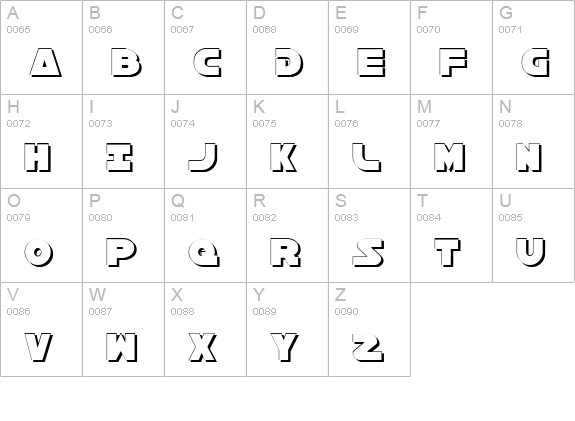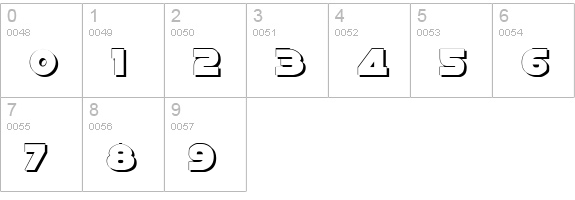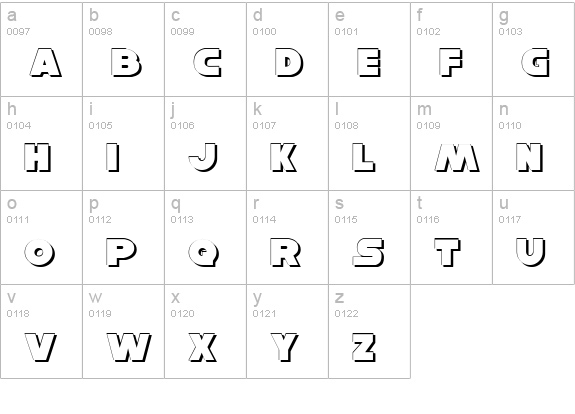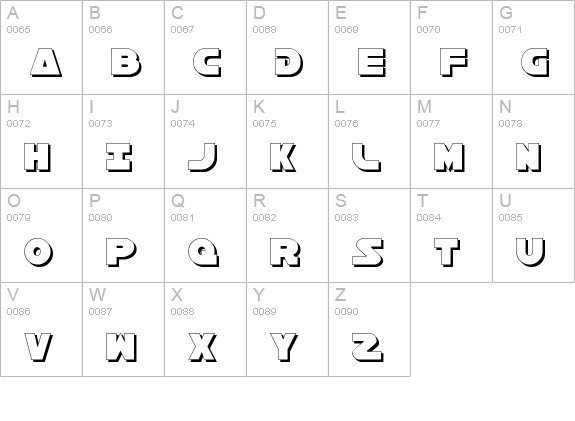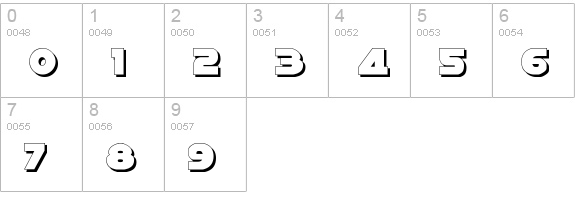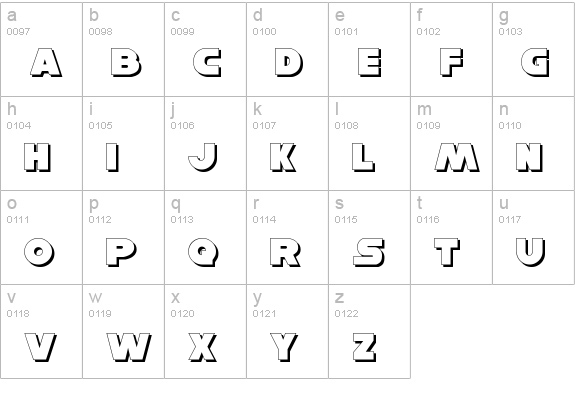
Han Solo Shadow Font Details
Introducing Han Solo Shadow font, a stunning typeface inspired by the legendary Han Solo himself. This font captures the essence of Han Solo's adventurous spirit, combining bold and dynamic letterforms with a touch of futuristic flair. The Han Solo Shadow font is perfect for adding a touch of rebellion to your design projects. Whether you're creating a poster for a sci-fi movie marathon, designing a logo for a space-themed event, or even customizing your own Star Wars-inspired merchandise, this font will bring a sense of excitement and adventure to your work. But what makes Han Solo Shadow font even more incredible is that it is available for free download at FontsMarket.com. That's right, you can unleash your creativity and bring Han Solo's iconic style to your designs without spending a single credit. With just a few clicks, you can have this extraordinary font at your fingertips and start creating captivating designs that are out of this galaxy. So don't miss out on this opportunity to add a touch of Han Solo's charm and daring to your projects. Download Han Solo Shadow font for free at FontsMarket.com and let your imagination soar to new heights. May the Force be with you as you embark on a design journey like no other!